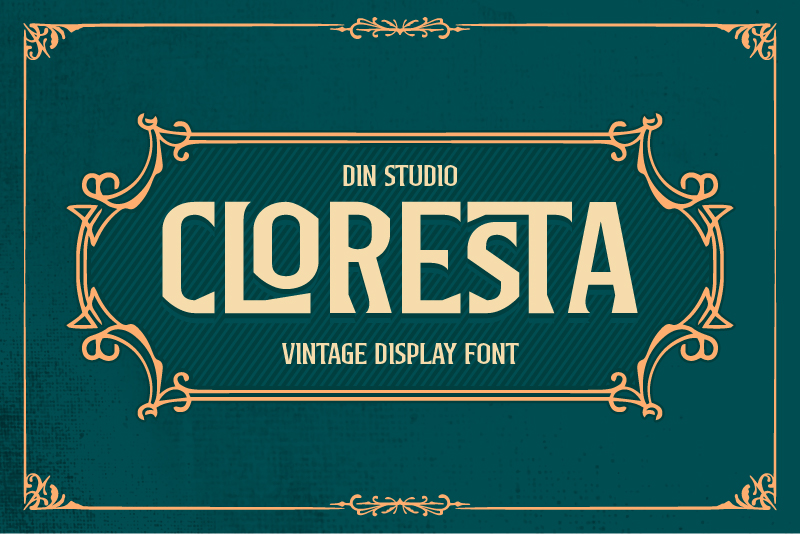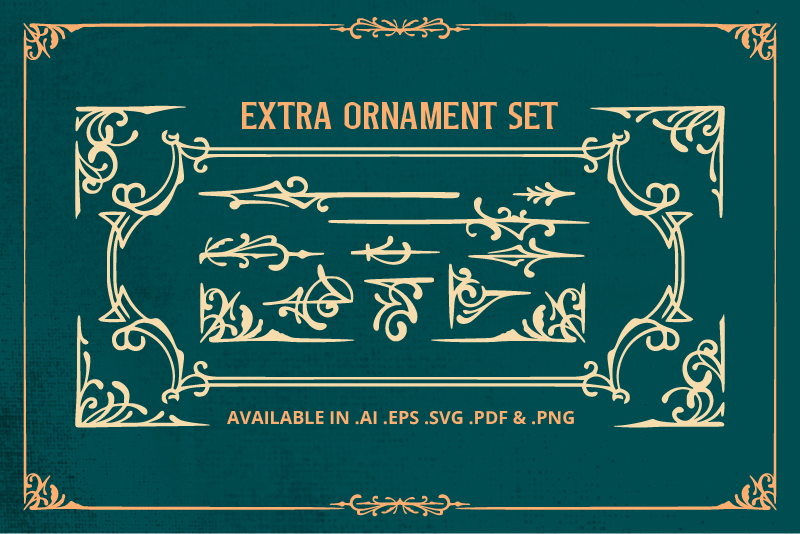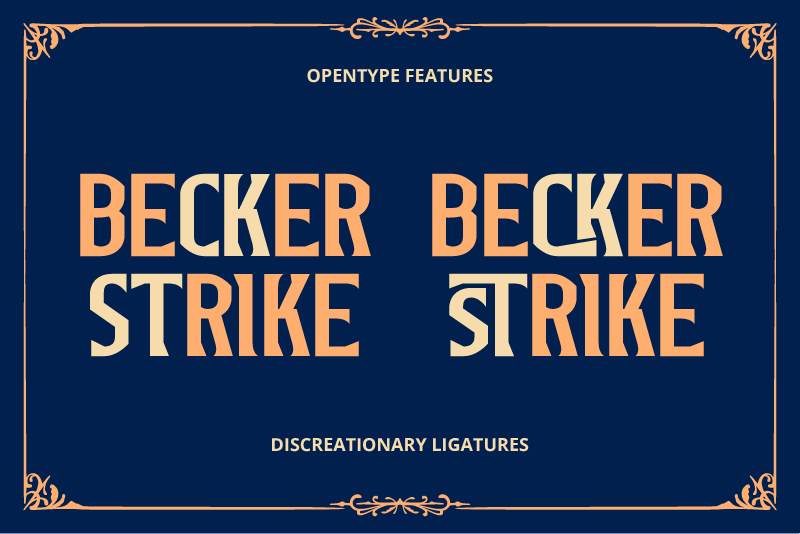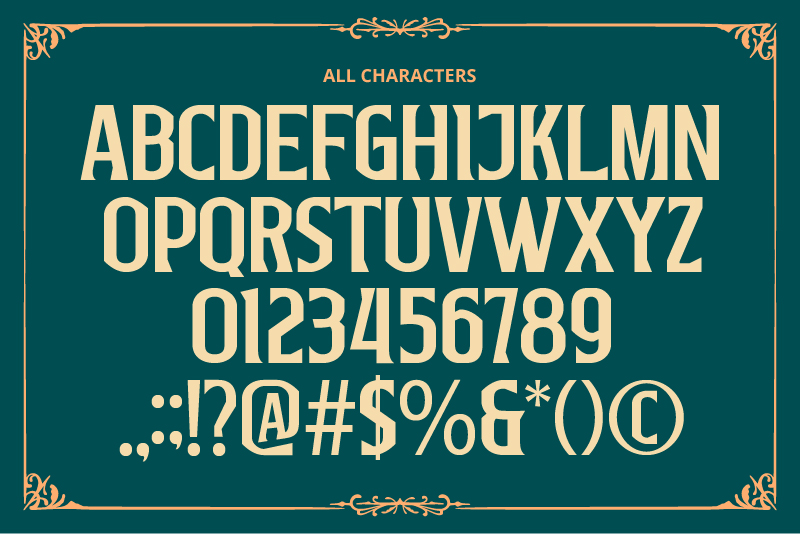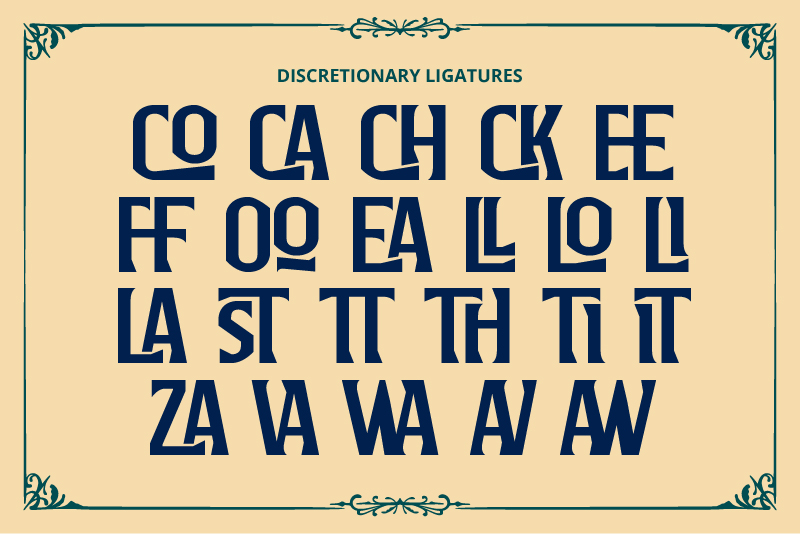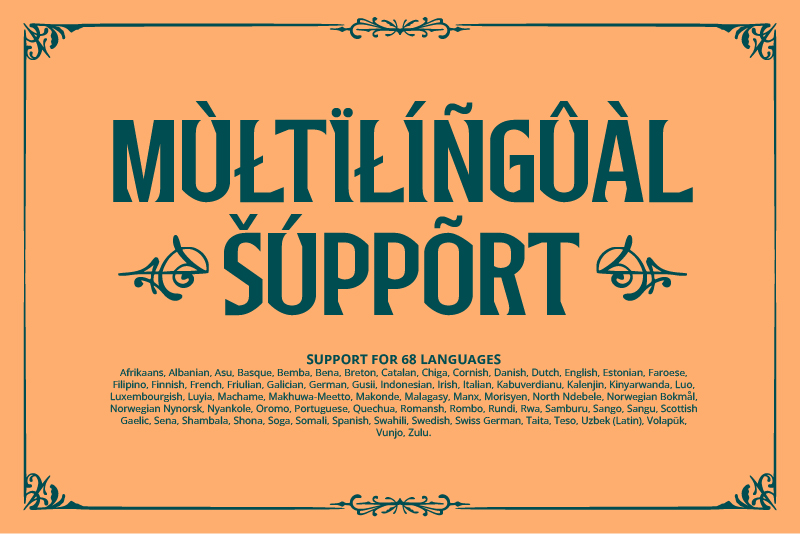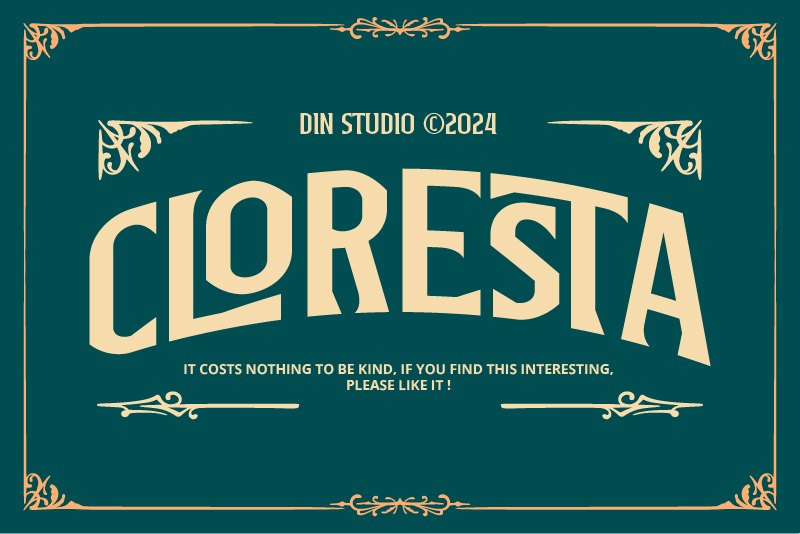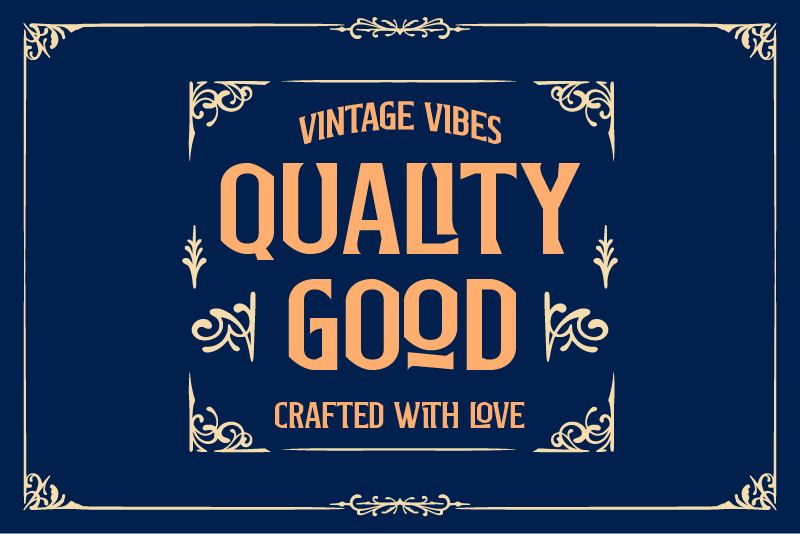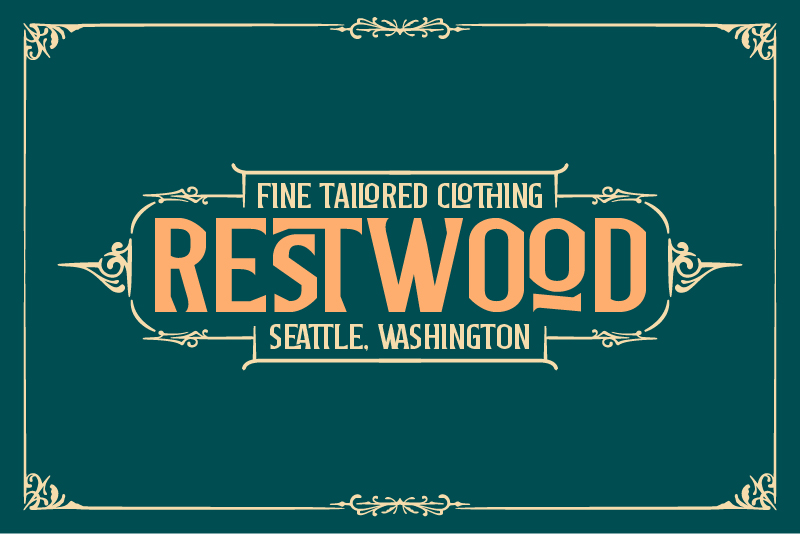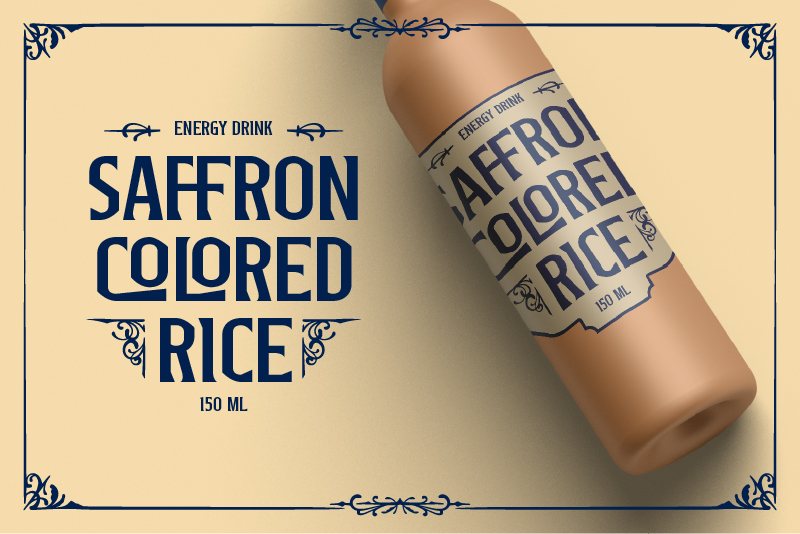
Introducing Cloresta, a captivating display font that brings vintage charm with a modern twist. Crafted in all uppercase letters, Cloresta presents a bold yet balanced thickness that commands attention without overwhelming your design. Its consistent letterforms and subtly rectangular shapes offer a unique blend of structure and elegance, creating a look that feels strong yet approachable. This font gives ornament sets as extra. In addition, enjoy the features here.
- Multilingual Supports
Cloresta fits in headlines, logos, posters, branding materials, packaging, print media, editorial layouts, and many more designs. Find out more ways to use this font by taking a look at the font preview.